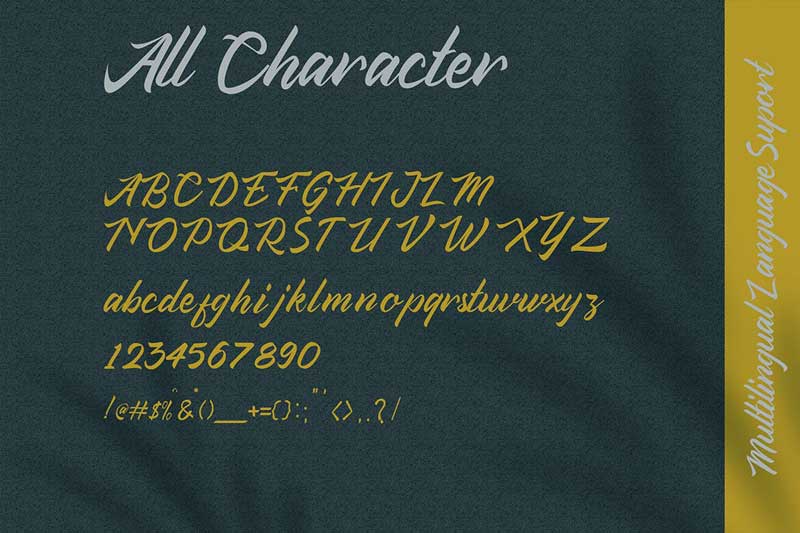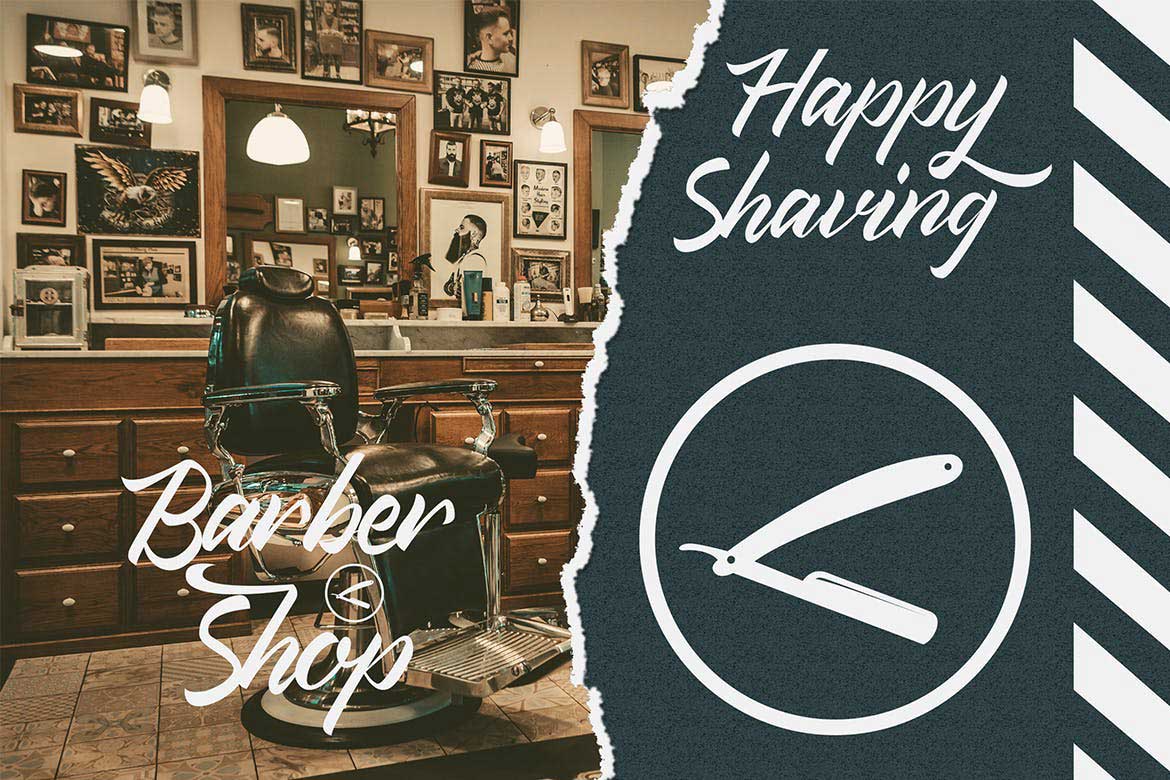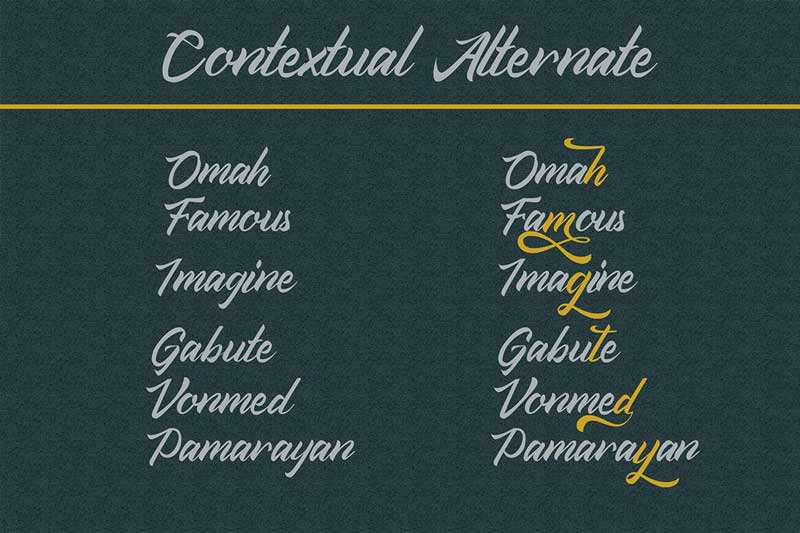
Houtand – Display Font
Houtand Font is a Display Typeface Suitable for any graphic designs such as branding materials, t-shirt, print, business cards, logo, poster, t-shirt, photography, quotes, coffee shop.etc